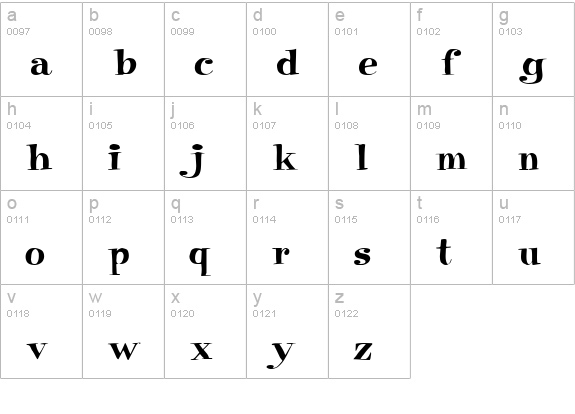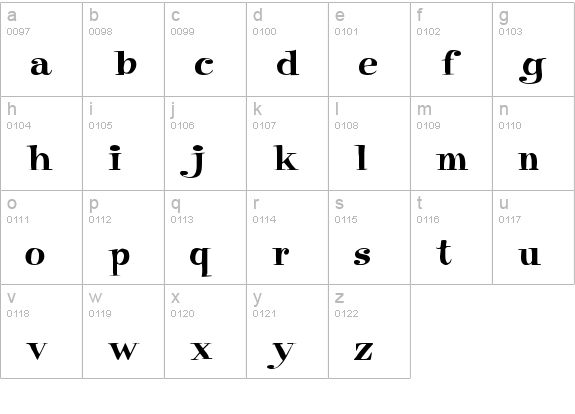
Pixie Regular Font Details
Pixie Regular is the standard, neutral variant in the Pixie typeface family \xE2\x80\x94 well suited to general body text, paragraphs, and standard typographic work.
Pixie Regular is a delightful and whimsical font that adds a touch of magic to any project. With its playful and charming design, this font brings a sense of joy and wonder to your designs. Whether you're creating invitations, greeting cards, or children's book illustrations, Pixie Regular will bring your creations to life. This font features a unique blend of rounded edges and elegant curves, giving it a friendly and approachable appearance. The characters are carefully crafted to maintain readability while still embodying the enchanting spirit of the font. From its dainty lowercase letters to its captivating uppercase characters, Pixie Regular is sure to capture the imagination of your audience. One of the most wonderful aspects of Pixie Regular is that it is available for free! That's right, you can freely download this font at FontsMarket.com. Whether you're a professional designer or a hobbyist, this font is accessible to everyone. Now, you can add a touch of magic to your designs without breaking the bank. So why wait? Embark on a whimsical journey with Pixie Regular and let your creativity soar. Download this enchanting font today and watch as your designs come to life with a sprinkle of pixie dust. Remember, the magic of Pixie Regular is just a click away at FontsMarket.com.